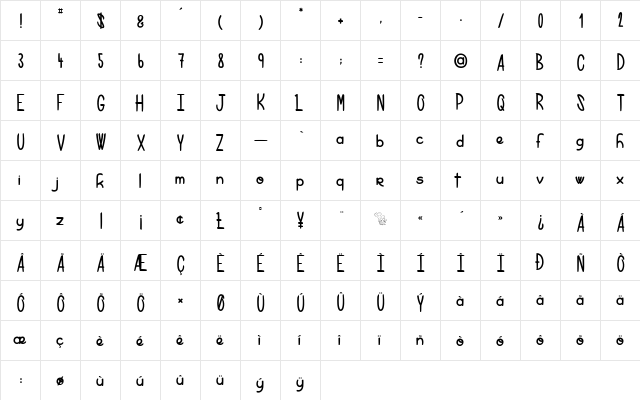
Right Balance Regular
Design Context for Right Balance Typeface
Right Balance is a composed and adaptable typeface that performs quietly and consistently across a wide range of design contexts.
Pro Tip: Pair Right Balance with a font of contrasting weight or personality to build a more expressive typographic hierarchy.